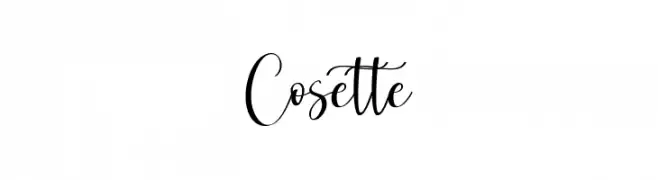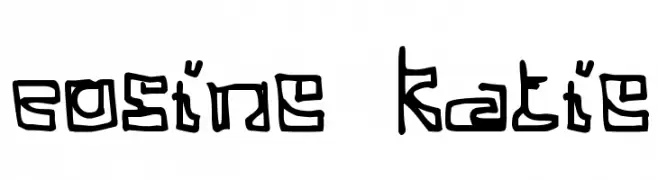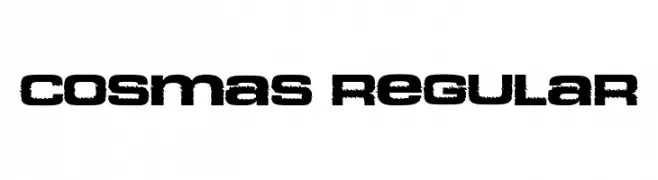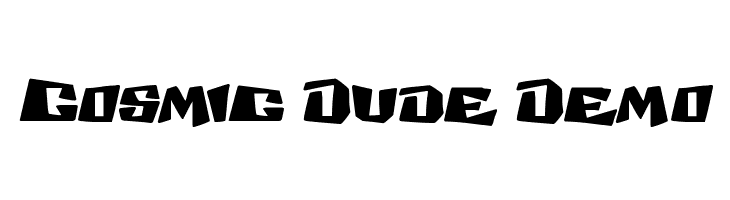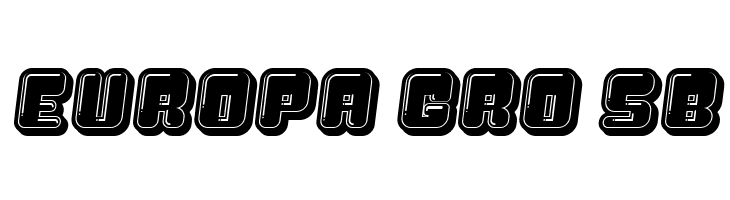
A bold, decorative font with irregular, playful shapes.
An elegant, flowing script font with smooth, cursive strokes and graceful curves.
A bold, modern sans-serif font with clean, uniform strokes.
A sleek, modern font with thin, elongated letterforms and clean lines.
A playful, hand-drawn font with quirky letterforms and smiley face characters.
A bold, decorative font with intricate swirls and flourishes.
A bold, distressed font with a grunge texture and wide, condensed characters.
A bold, retro-inspired font with thick, rounded strokes and a playful, cartoonish style.
A modern, geometric sans-serif font with a clean and minimalist style.